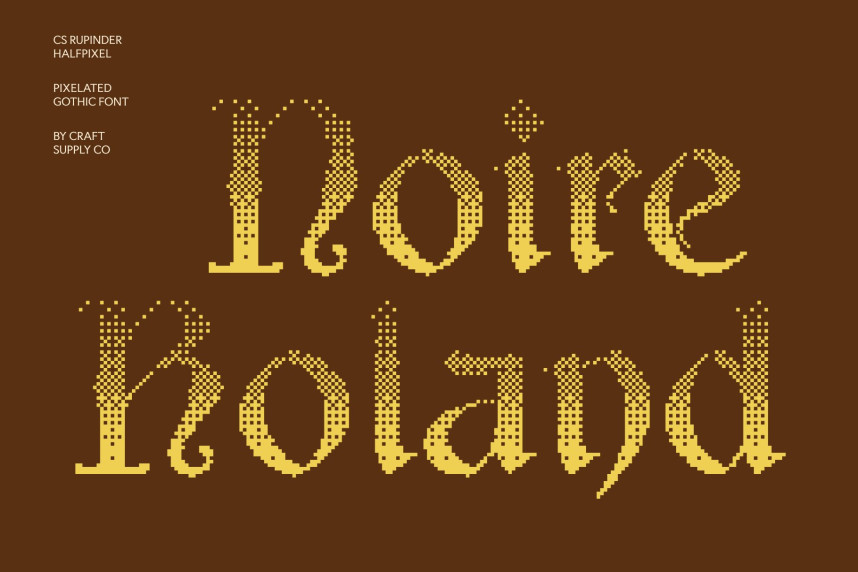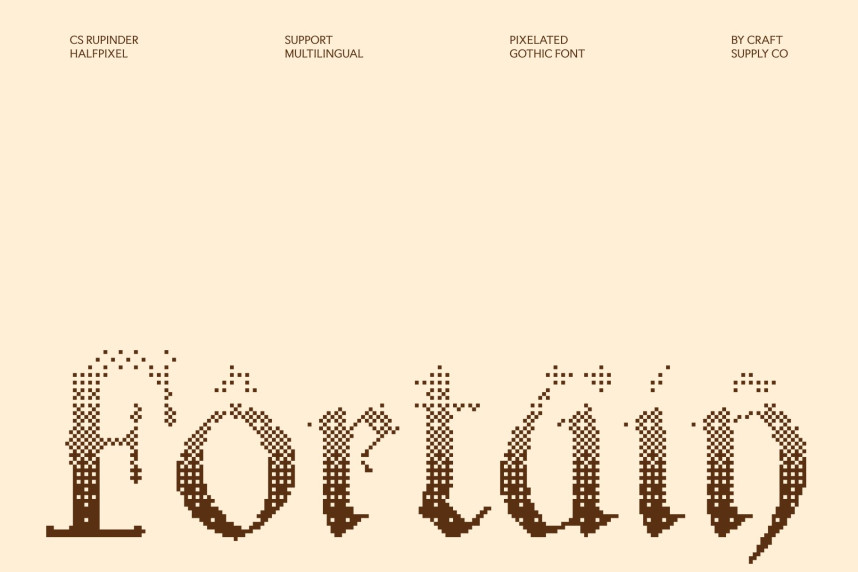
CS Rupinder Halfpixel Font
CS Rupinder Halfpixel Font – Gothic Uncial Display Font: Where Medieval Mystique Meets Digital Nostalgia
Distinctive Fusion of Uncial and Gothic Styles
This is a gothic uncial display font featuring a unique blend of uncial elegance and Gothic character. Its rounded uncial influences combine seamlessly with dramatic Gothic details, creating letterforms that feel historic, mysterious, and richly expressive. This fusion results in a striking visual identity that evokes ancient manuscripts, fantasy worlds, and dark storytelling traditions.